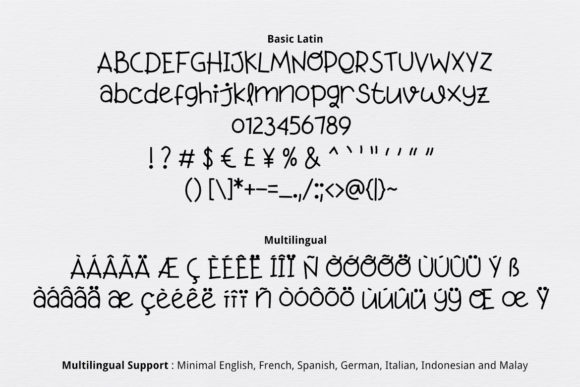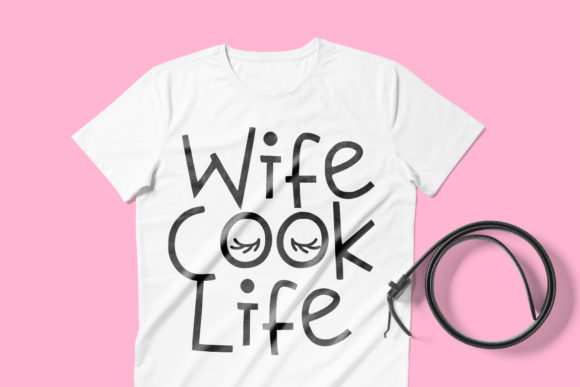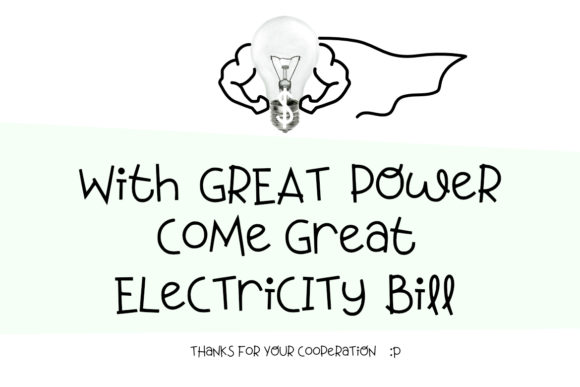
Introducing Apple Juice Font: A Cute and Playful Sans Serif Font with a Modern Twist
Are you tired of using the same old fonts in your designs? Look no further! Apple Juice Font is a unique and charming sans serif font that is sure to add a touch of modern whimsy to your projects. With its cute and playful vibe, this font is perfect for designers and crafters looking to add some personality to their work.
The Inspiration Behind Apple Juice Font
Apple Juice Font is a one-of-a-kind font that was designed to evoke a sense of fun and playfulness. Its creators were inspired by the idea of taking a traditional sans serif font and giving it a modern twist. The result is a font that is both clean and elegant, yet also cute and quirky.
What Makes Apple Juice Font So Special?
So, what sets Apple Juice Font apart from other fonts out there? Here are just a few of its unique features:
- Unique Character Set: Apple Juice Font has a vast character set that includes uppercase and lowercase letters, numbers, and punctuation marks. Each character has been carefully designed to be both visually appealing and highly legible.
- Modern Twist: Apple Juice Font has a distinctly modern feel, with clean lines and a fresh aesthetic. This makes it perfect for designs that require a contemporary look and feel.
- Playful Vibe: Despite its modern twist, Apple Juice Font still manages to be incredibly playful and fun. This makes it perfect for designs that require a bit of personality and whimsy.
How to Use Apple Juice Font in Your Designs
Apple Juice Font is incredibly versatile and can be used in a wide range of design projects. Here are just a few ideas to get you started:
- Crafting Projects: Apple Juice Font is perfect for crafting projects, such as making cards, gift tags, and other paper crafts.
- Digital Designs: This font is also great for digital designs, such as social media graphics, blog posts, and website headers.
- Branding and Packaging: Apple Juice Font can even be used for branding and packaging projects, such as creating labels and product packaging.
Tips and Tricks for Getting the Most Out of Apple Juice Font
Here are a few tips and tricks to help you get the most out of Apple Juice Font:
- Experiment with Different Sizes: Apple Juice Font looks great in a variety of sizes, from large headings to smaller body text.
- Pair it with Other Fonts: Try pairing Apple Juice Font with other fonts to create a unique and visually appealing combination.
- Use it for Headings and Titles: Apple Juice Font is perfect for headings and titles, where its playful vibe can really shine.
| Font Name | Apple Juice Font |
| Author | YandiDesigns |
Apple Juice Font is a one-of-a-kind font that is sure to add a touch of modern whimsy to your designs. With its unique character set, modern twist, and playful vibe, this font is perfect for designers and crafters looking to add some personality to their work. So why not give it a try and see the difference it can make in your designs?